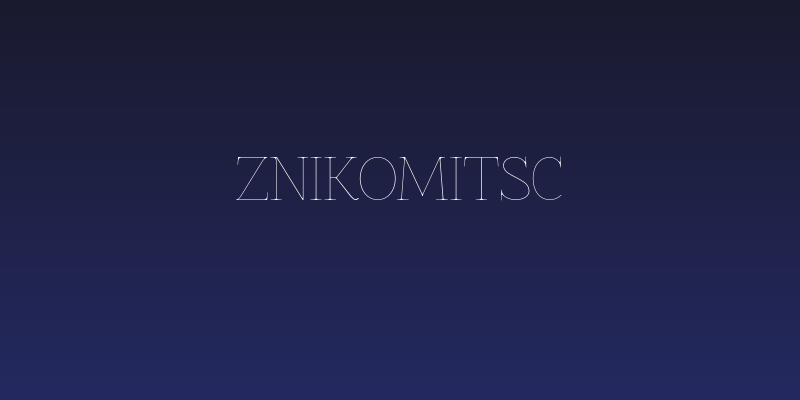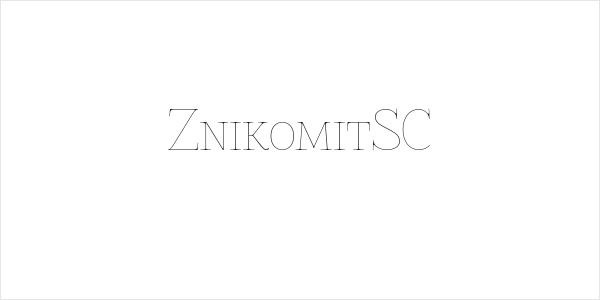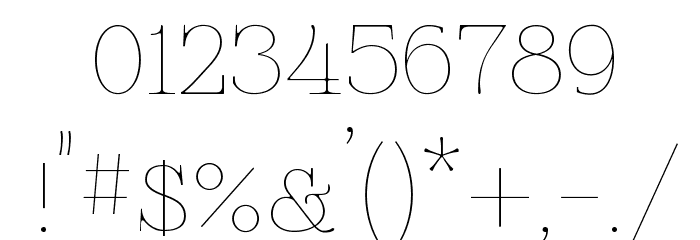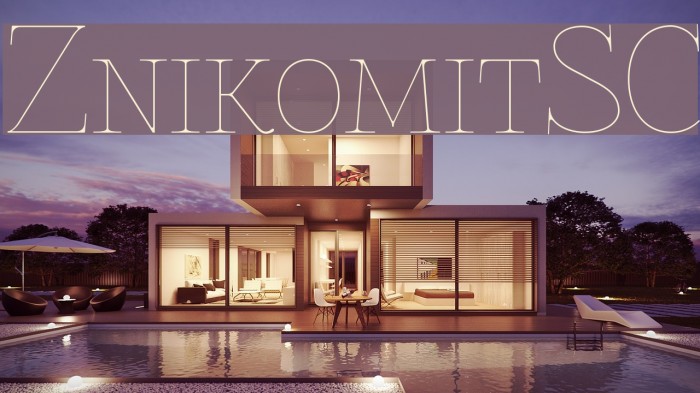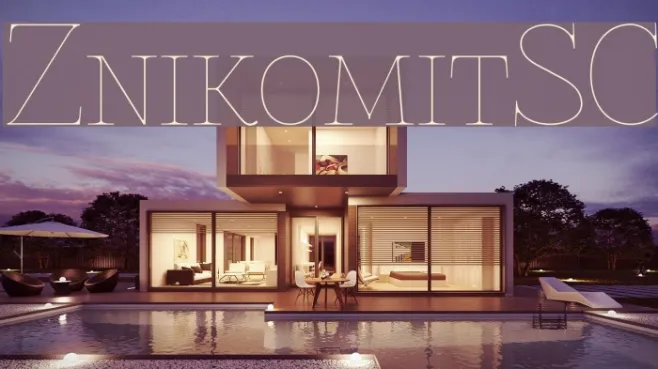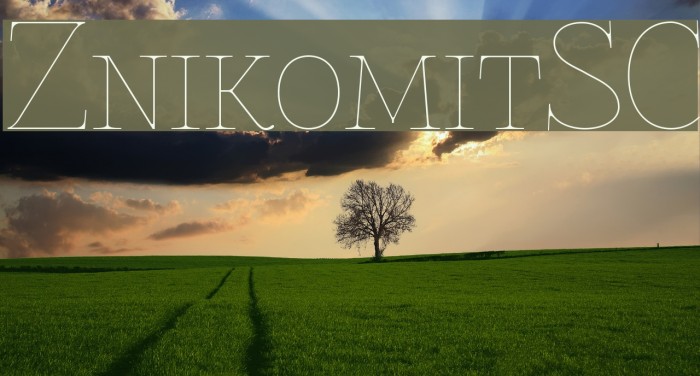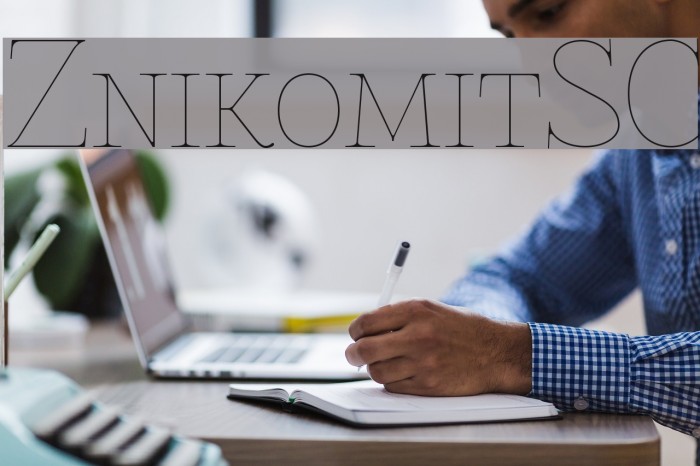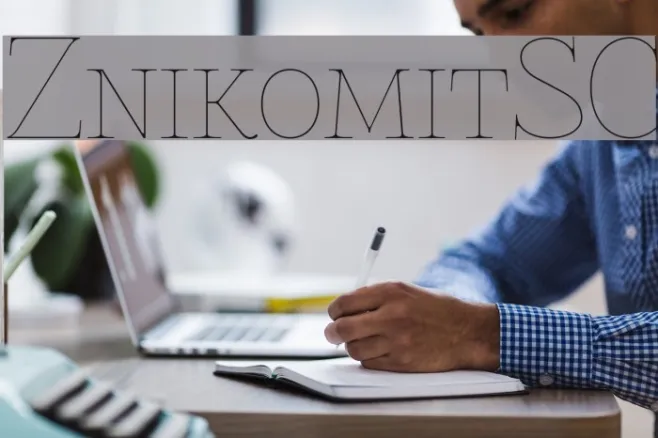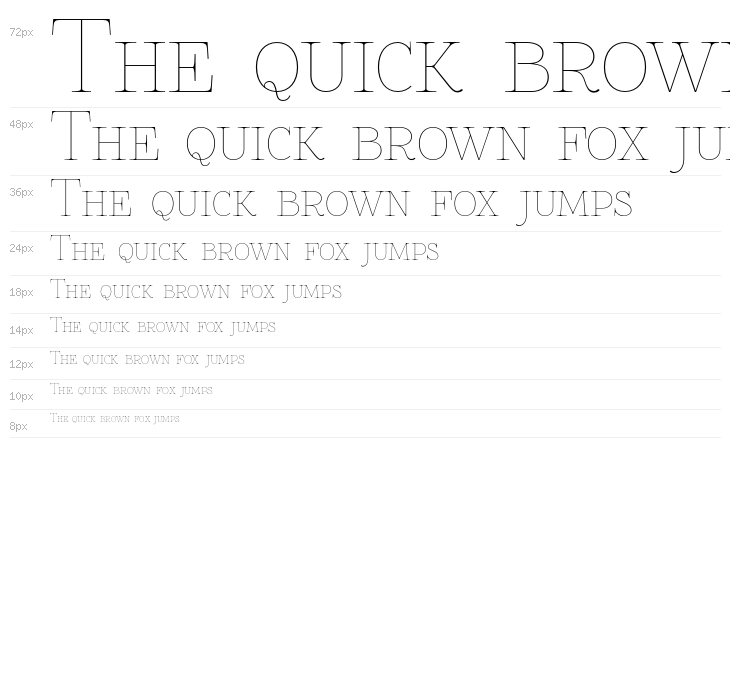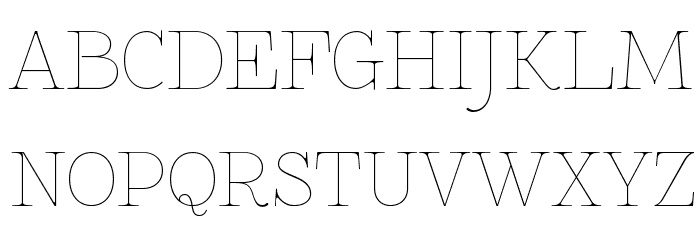
ZnikomitSC Font
ZnikomitSC Description
This font features a delicate and elegant design with thin, elongated strokes that give it a refined and sophisticated appearance. The characters are well-proportioned, with a slight contrast in stroke thickness that adds to its graceful look. The uppercase letters are tall and slender, while the lowercase letters maintain a consistent style, enhancing readability. The numerals are clear and distinct, matching the overall aesthetic of the font. Special characters are thoughtfully designed, maintaining the font's elegant and airy feel. This typeface is perfect for projects that require a touch of class and elegance.
| Proposed Projects | Ideal for wedding invitations, luxury branding, editorial design, and high-end product packaging. |